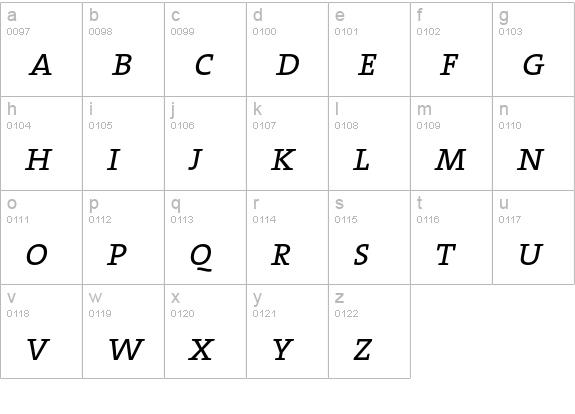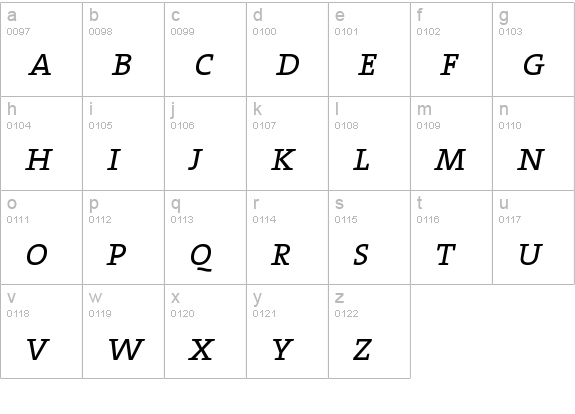
TheSerif SemiLight Caps Italic Font Details
TheSerif SemiLight Caps Italic is a distinctive, italic variant in the TheSerif typeface family \xE2\x80\x94 well suited to design and typography projects.
TheSerif SemiLight Caps Italic font is a stunning typeface that exudes elegance and sophistication. Its sleek and slender design adds a touch of grace to any project, making it the perfect choice for those who want to make a lasting impression. This font features beautiful capital letters with a slight slant, giving it a unique and stylish look. The semi-light weight adds a delicate and refined touch, making it ideal for titles, headings, and branding materials. With its clean lines and subtle curves, TheSerif SemiLight Caps Italic font is incredibly versatile, making it suitable for a wide range of design projects. Whether you're designing a logo, creating a magazine layout, or crafting a professional presentation, this font will elevate your work to new heights. One of the best things about TheSerif SemiLight Caps Italic font is that it is completely free. Yes, you read that right! This amazing font is freely available to download at FontsMarket.com. You can enhance your designs without spending a dime, making it a budget-friendly option for both personal and commercial projects. Not only is TheSerif SemiLight Caps Italic font visually appealing, but it is also highly legible. Its clear and well-defined letterforms ensure that your message is easily readable, no matter the size or context. It is a font that combines style and functionality seamlessly. In conclusion, TheSerif SemiLight Caps Italic font is a must-have for designers and creatives looking to add a touch of elegance and sophistication to their work. Its freely available download at FontsMarket.com allows you to enhance your projects without breaking the bank. So why wait? Download this remarkable font today and take your designs to the next level.